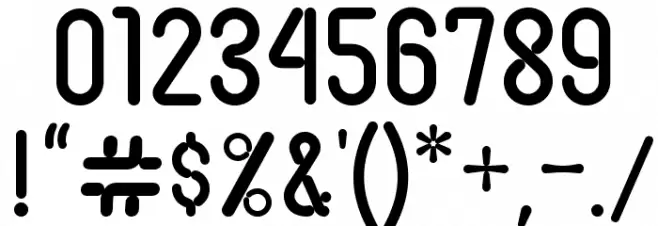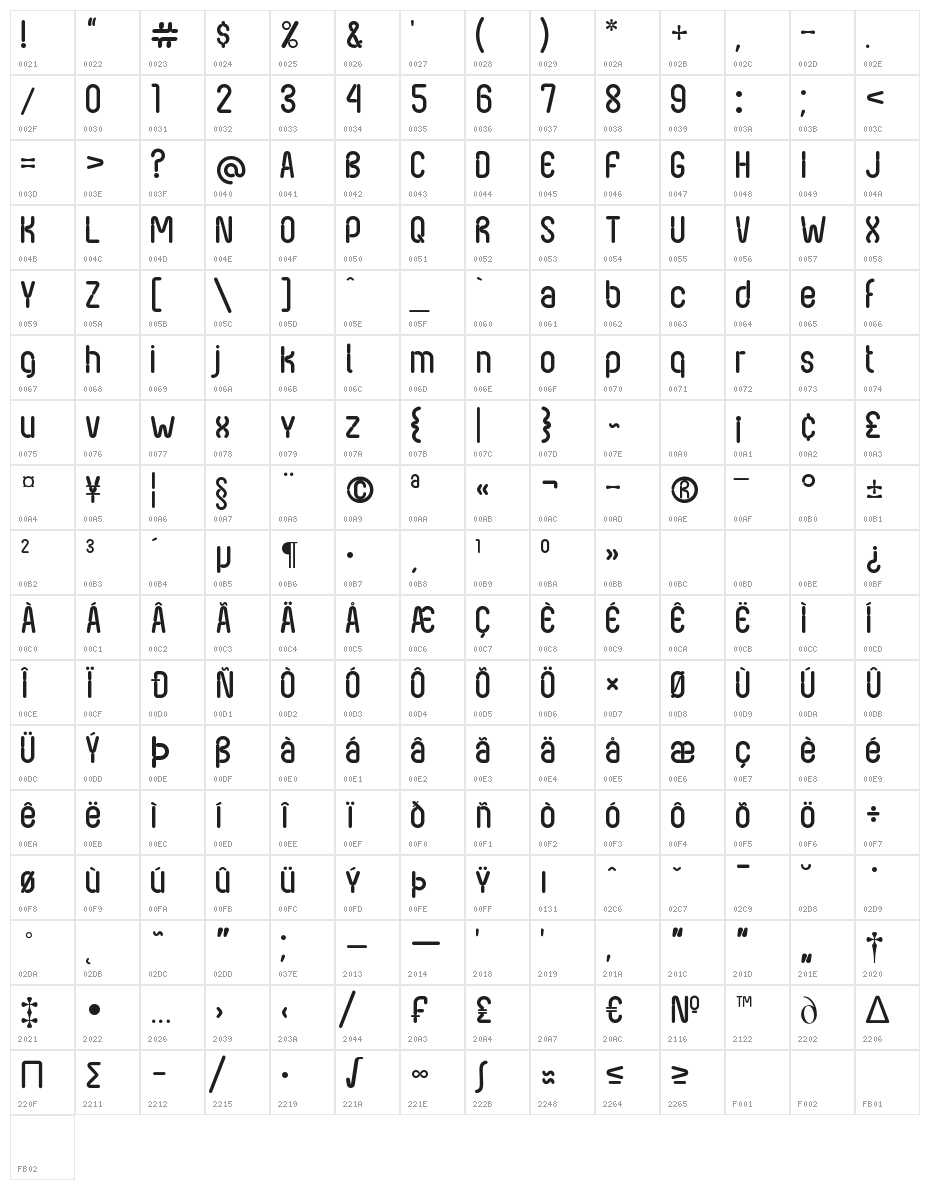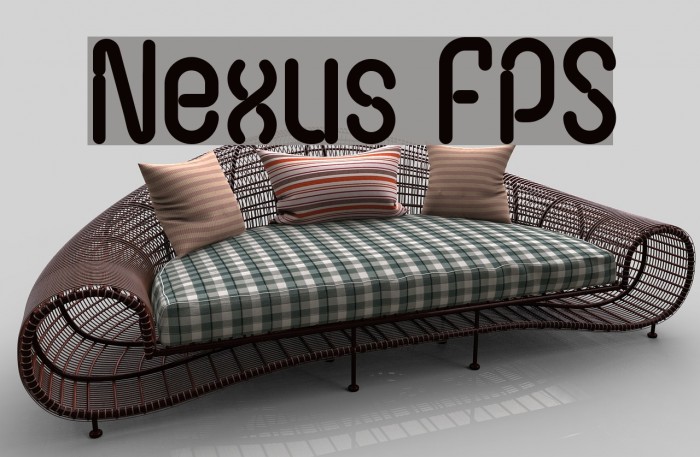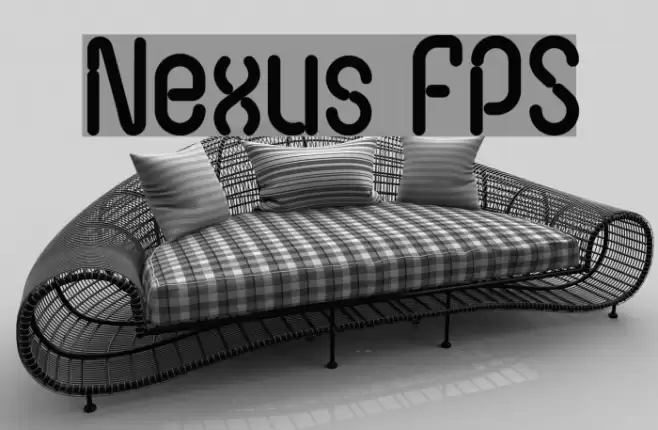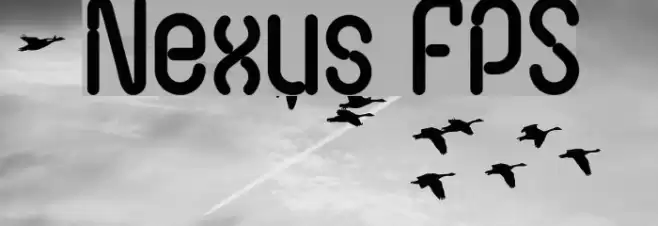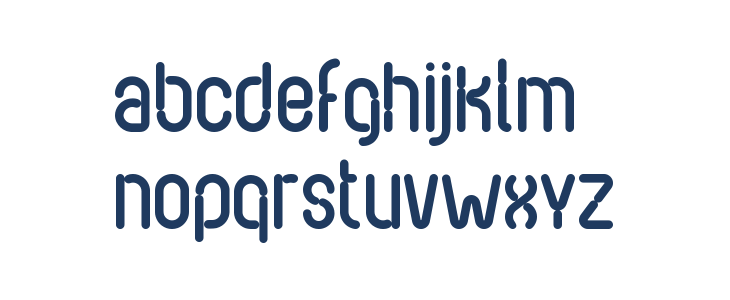
Nexus FPS Font
Nexus FPS Description
This font features a modern, geometric design with rounded edges and a consistent stroke width. The characters are bold and have a futuristic appeal, making them stand out with their unique, interconnected style. The uppercase letters maintain a uniform height, while the lowercase letters are slightly shorter, providing a balanced look. The numerals are clear and easy to read, matching the overall aesthetic. Special characters are designed to complement the alphabet, maintaining the same rounded and bold characteristics. This font is ideal for projects that require a contemporary and eye-catching typeface.